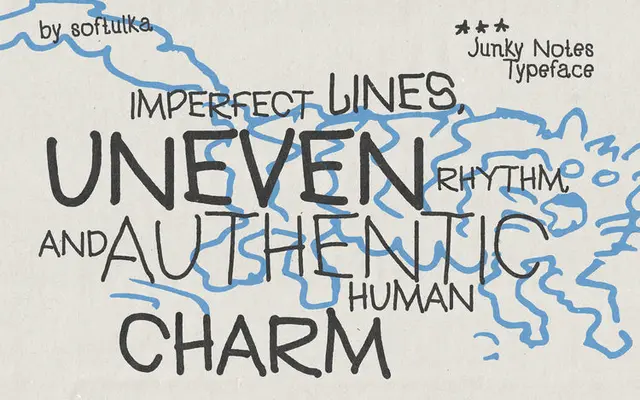
Junky Notes
A casual handwritten typeface by Softulka, built around the irregular strokes and uneven spacing of notebook margins and everyday pen scribbles.
Two weights, Regular and Bold, make up this 192-glyph script designed to mimic the spontaneous energy of doodles and quick sketches rather than polished calligraphy. Its deliberately imperfect rhythm and hand-drawn character give it an approachable warmth suited to posters, greeting cards, packaging and children's projects. Diacritics, currency symbols and basic mathematics are included, broadening its utility beyond decorative use.
Junky Notes is a casual handwritten script designed to mimic notebook scribbles, doodles and margin sketches, placing it firmly in the informal handwritten subcategory of script typefaces.